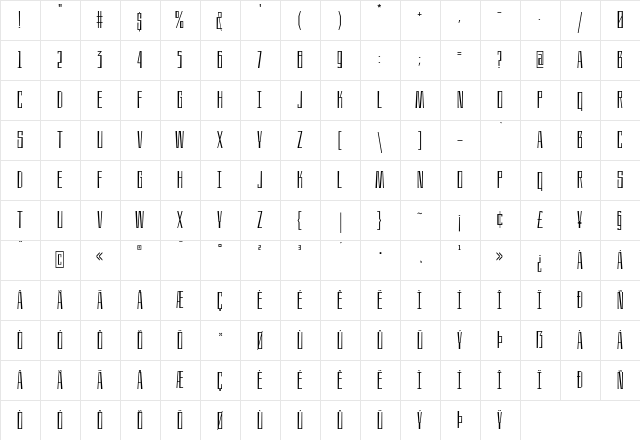
Nullomis Light
| Foundry | kulturrrno |
| Designer | Ilyas Yunusov |
Design Context for Nullomis Typeface
Nullomis offers clean, dependable letterforms without strong stylistic allegiance, making it a practical choice for designers who need flexibility. The delicate stroke weight brings airiness and refinement to layouts.